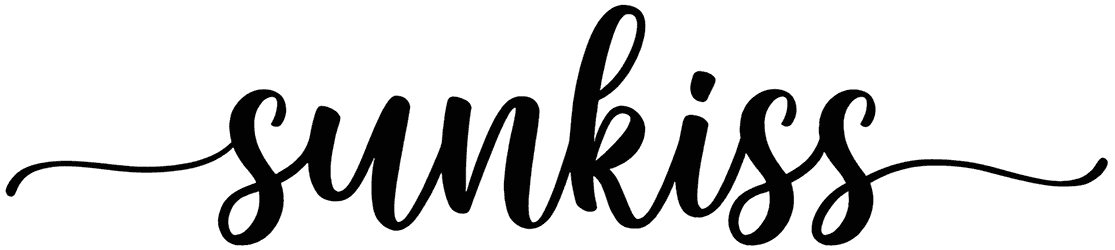
Sunkiss Script Font
Consecutive letters associated with a particular song have always been attractive to designers and viewers. That is why we recommend you download Sunkiss Script. This invitation font will give your texts a very natural and organic look, showing a human identity.
For this reason, it gives you more opportunities to communicate with different audiences. You can write book dedications, wedding cards, and warm greetings with this calligraphy font.